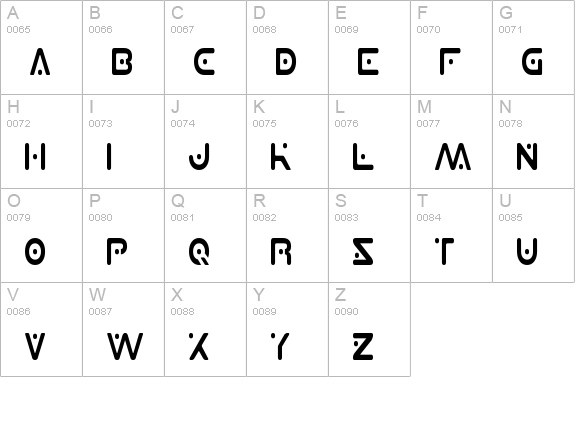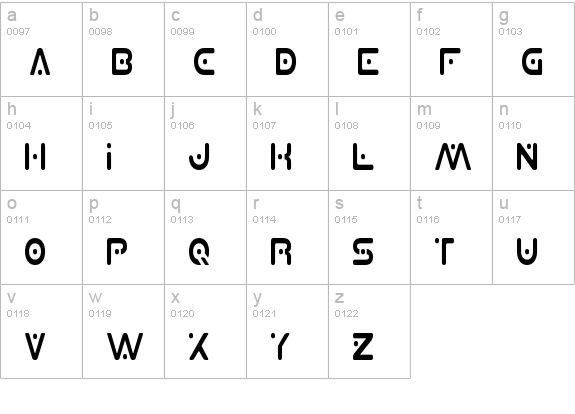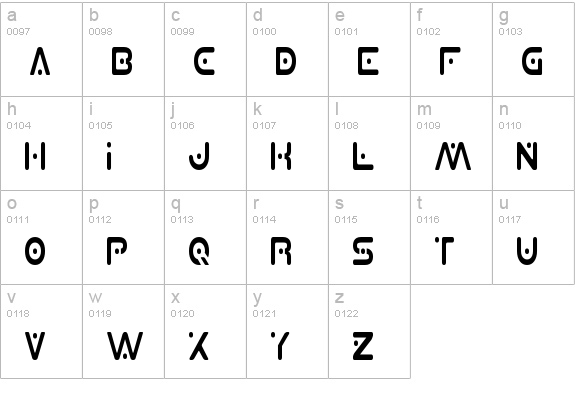
Planet X Condensed Font Details
Planet X Condensed is a distinctive, condensed-width variant in the Planet typeface family \xE2\x80\x94 well suited to design and typography projects.
Introducing Planet X Condensed font - a sleek and modern typeface that will take your designs to the next level. With its condensed letterforms and stylish curves, this font is perfect for adding a touch of sophistication and professionalism to any project. Planet X Condensed is not only visually appealing, but it also offers a high level of legibility, making it an ideal choice for both print and digital design. Whether you're designing a logo, creating a website, or crafting a marketing campaign, this font will ensure that your message is clear and visually striking. What's even better is that Planet X Condensed font is available for free! That's right, you can freely download this font and use it in your personal and commercial projects without any restrictions. Simply head over to FontsMarket.com, and within a few clicks, you'll have access to this fantastic font that will elevate your designs to new heights. With its versatility and elegance, Planet X Condensed font is bound to become your go-to choice for all your design needs. So why wait? Download it now and let your creativity soar with this freely available font.